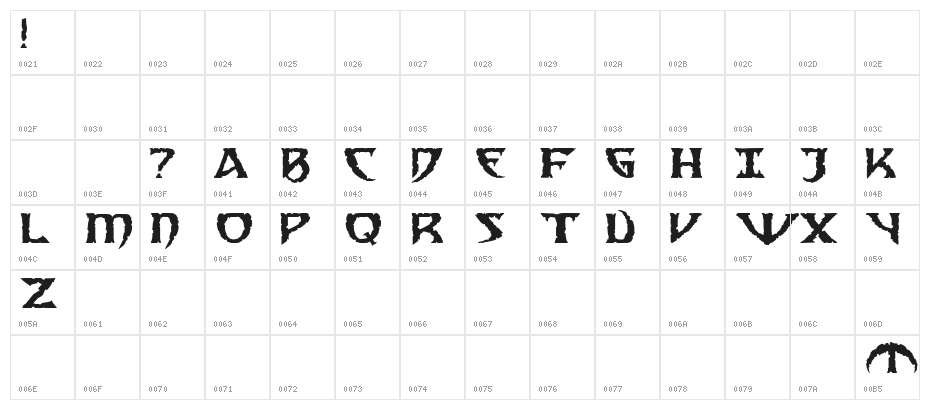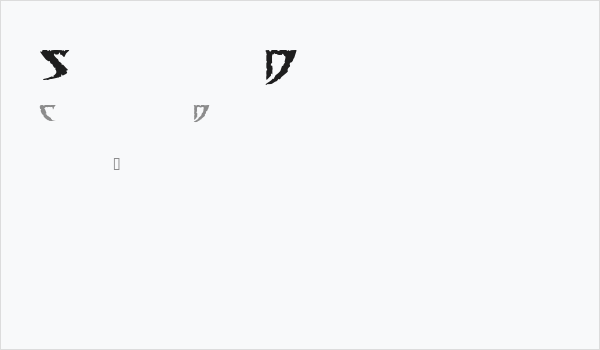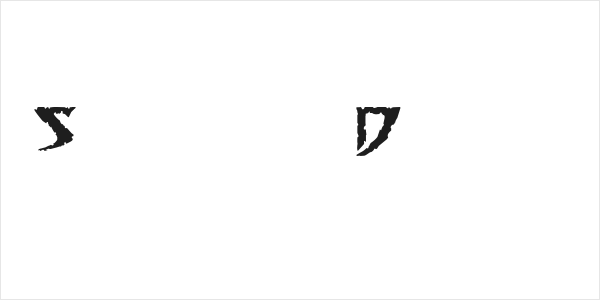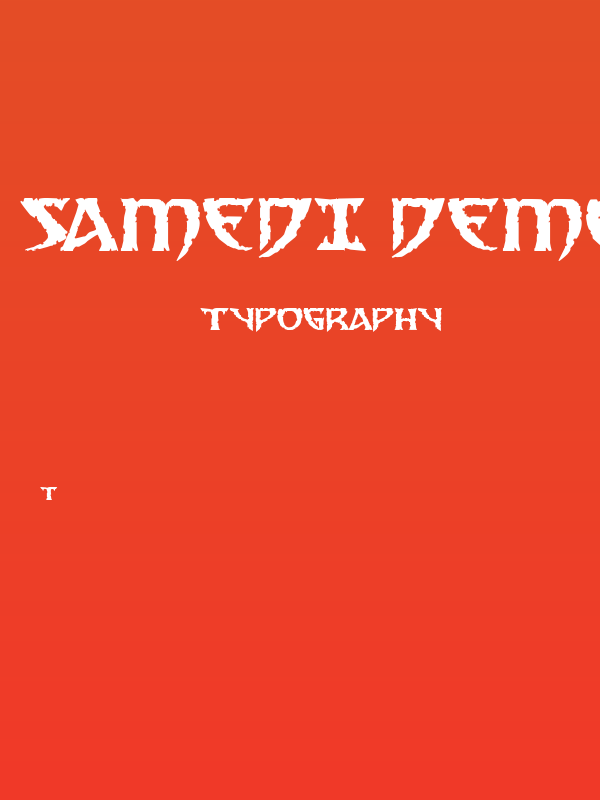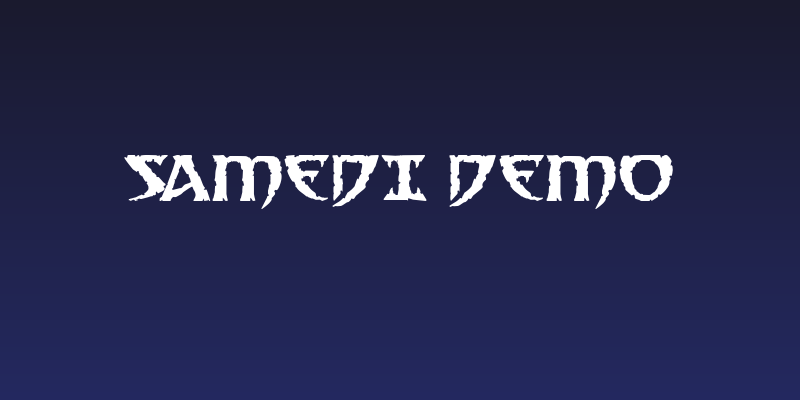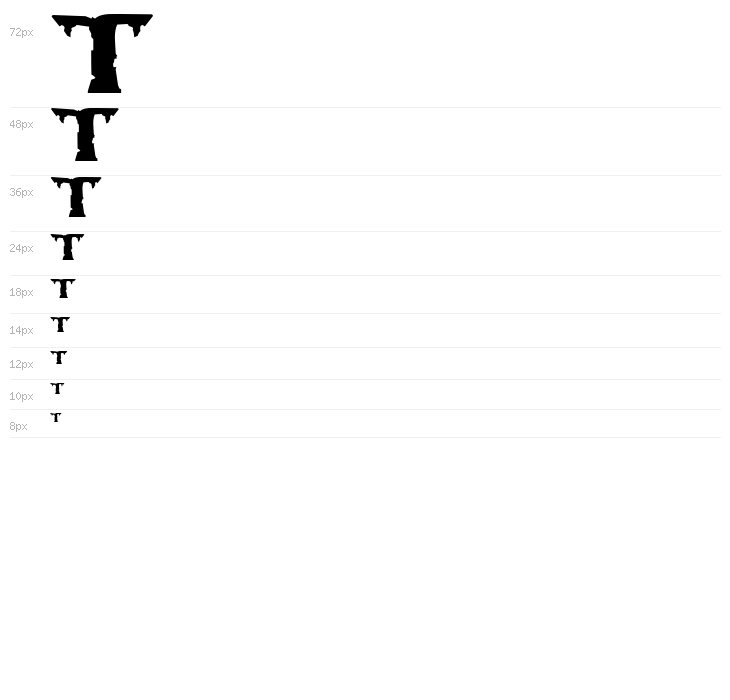
Samedi Demo Font
Samedi Demo Description
This font features a bold and dramatic style with sharp, angular edges and a distinct gothic influence. The uppercase letters are characterized by their intricate design, resembling ancient script with a modern twist. The strokes are thick and uneven, giving a hand-carved appearance that adds to its unique charm. The font's overall aesthetic is both mysterious and captivating, making it suitable for projects that require a touch of the dramatic or the fantastical. Its bold presence ensures that it stands out, making it ideal for headlines or titles that need to capture attention.
| Overall Style | Gothic, Dramatic |
| Proposed Projects | Ideal for fantasy book covers, gothic-themed posters, Halloween invitations, and dramatic headlines. |